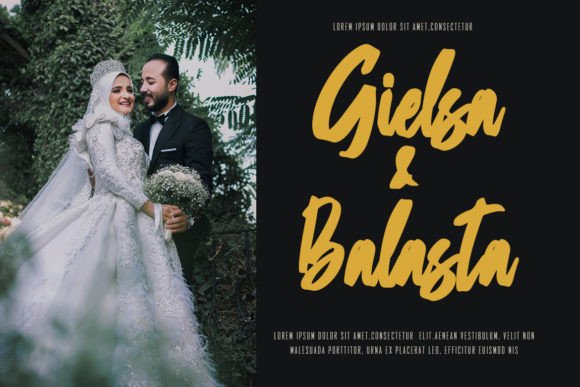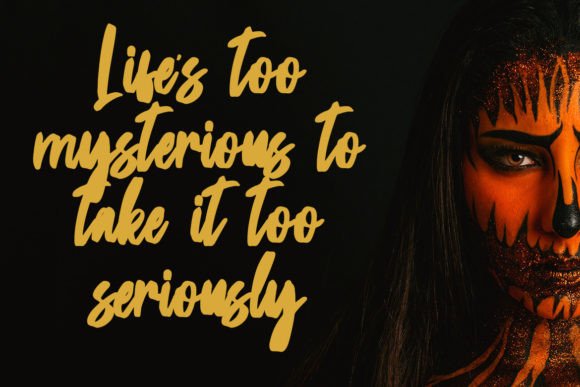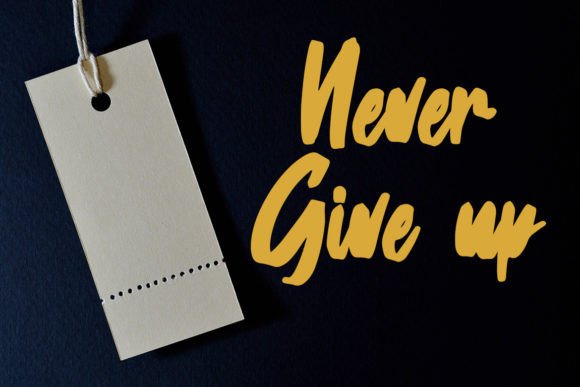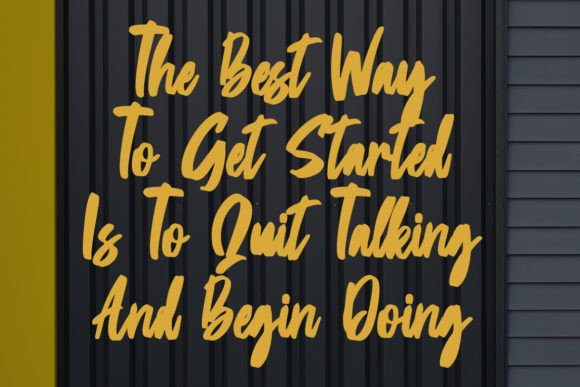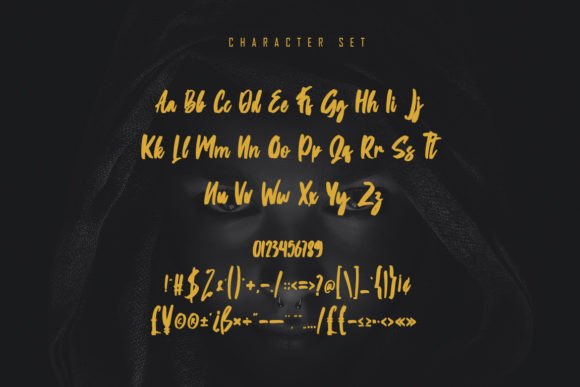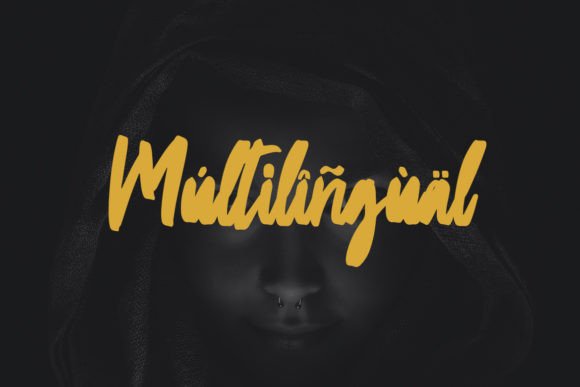
Introducing Gahitas Font: Elevate Your Designs with a Stylish Handwritten Touch
In the world of design, fonts play a crucial role in conveying the message and aesthetic of a project. For designers and crafters looking to add a personal touch to their work, Gahitas Font is an excellent choice. This modern handwritten font is specifically crafted to give your headlines and logotype projects a stylish, strong, confident, and dynamic look.
What Makes Gahitas Font Stand Out?
Gahitas Font is not just another font; it’s a design statement. Its unique, handwritten style reads as strong, confident, and dynamic, making it perfect for designers who want to add character to their designs. Whether you’re working on a logo, a headline, or any other project that requires a touch of personality, Gahitas Font is designed to impress.
Key Features of Gahitas Font
- Modern Handwritten Style: Gahitas Font boasts a contemporary handwritten look that is both stylish and versatile.
- Strong and Confident: The font’s design exudes strength and confidence, making it ideal for headlines and logotypes that need to make an impact.
- Dynamic and Characterful: With its unique flair, Gahitas Font adds a significant amount of character to any design, ensuring your projects stand out.
- Versatility: Suitable for a wide range of projects, from branding and advertising to packaging and digital media.
How to Use Gahitas Font in Your Designs
- Pair it with Other Fonts: Combine Gahitas Font with complementary fonts to create visual interest and hierarchy in your designs.
- Experiment with Colors: The right color scheme can enhance the impact of Gahitas Font. Try different colors to find the perfect match for your brand or project.
- Play with Sizes: Don’t be afraid to experiment with different font sizes to add emphasis and create a dynamic layout.
Why Designers and Crafters Love Gahitas Font
Gahitas Font has quickly become a favorite among designers and crafters for several reasons:
- Unique Style: Its distinctive handwritten style sets it apart from more traditional fonts.
- Easy to Read: Despite its stylized appearance, Gahitas Font remains highly legible, making it suitable for a variety of applications.
- Time-Saving: With Gahitas Font, you can achieve professional-looking results quickly, saving you time and effort.
Gahitas Font is a powerful tool for designers and crafters looking to add a stylish, modern touch to their projects. Its unique blend of strength, confidence, and dynamism makes it an excellent choice for headlines, logotypes, and any design that requires a bit of personality. By incorporating Gahitas Font into your design arsenal, you’ll be able to create stunning, character-filled designs that capture attention and leave a lasting impression.
Whether you’re a seasoned designer or a crafting enthusiast, Gahitas Font is sure to inspire your creativity and elevate your designs to the next level.